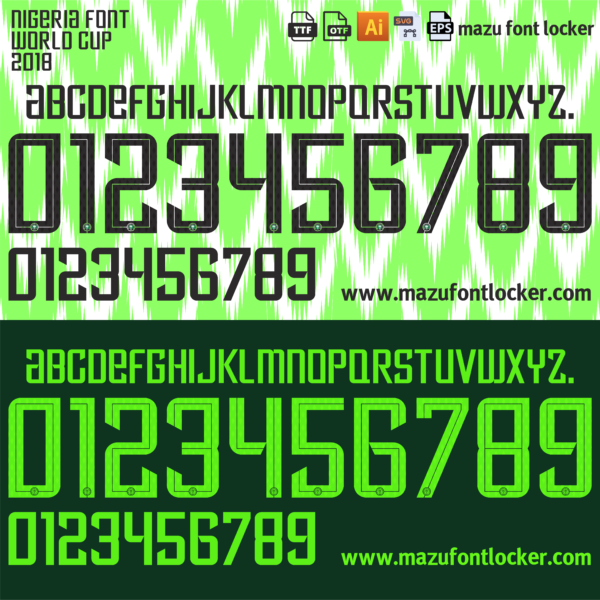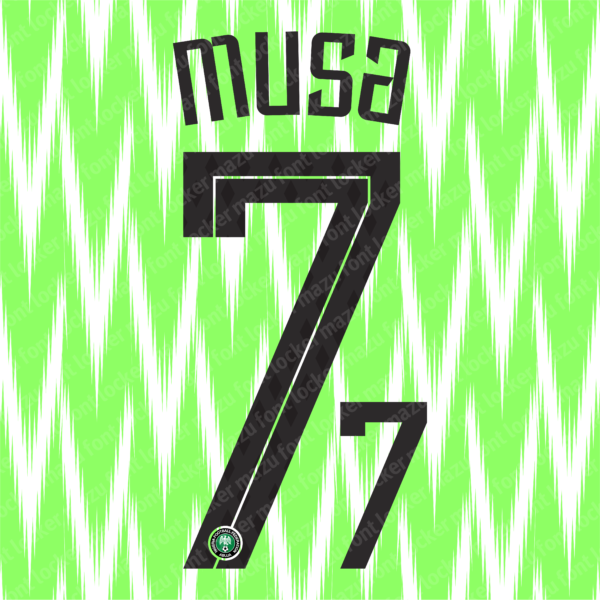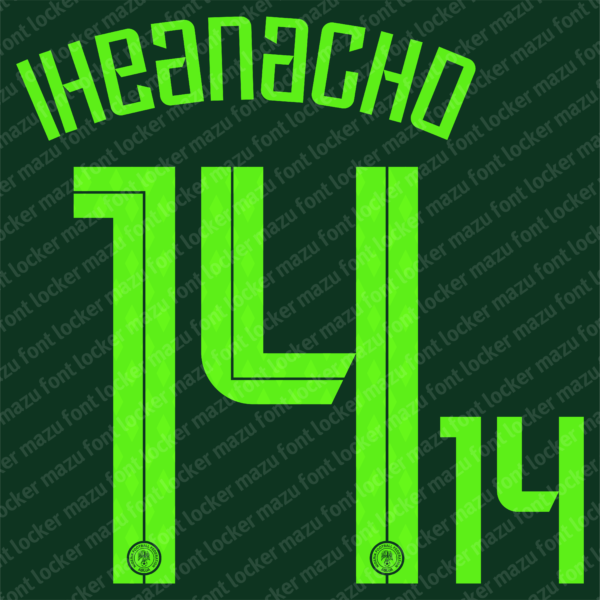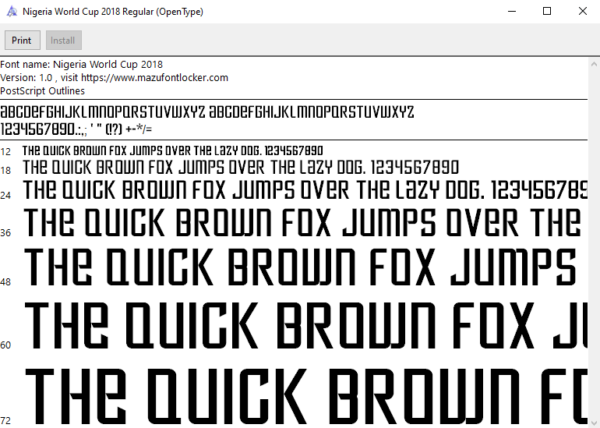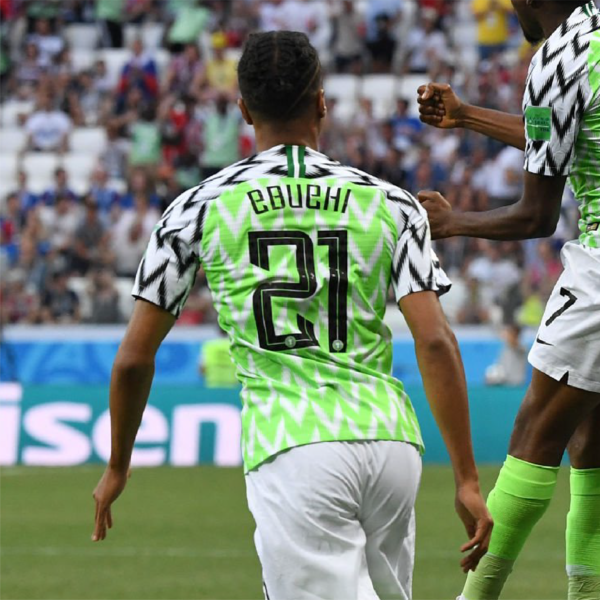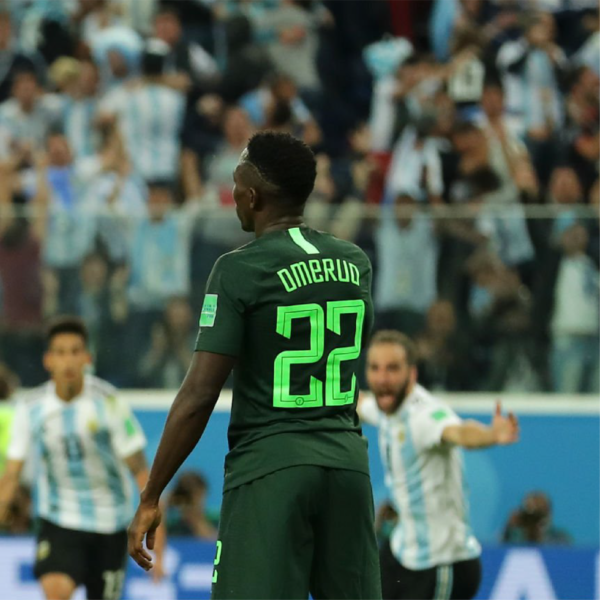
Nigeria World Cup 2018 Font Vector – Legendary Super Eagles Jersey Style
Download the iconic Nigeria World Cup 2018 font and bring the legendary Super Eagles jersey style into your creative projects with unmatched precision and authenticity. The Nigeria World Cup 2018 font is one of the most celebrated football jersey typefaces ever created, inspired by the unforgettable kit that shocked the football world with its bold design, vibrant energy, and fearless African spirit during the 2018 FIFA World Cup.
Nigeria World Cup 2018 Font Vector
The Nigeria World Cup 2018 Font is a premium, high-precision football jersey font vector meticulously engineered to capture the fearless energy, explosive creativity, and electrifying identity of Nigeria’s unforgettable World Cup kits.
Inspired by the legendary Super Eagles squad and their iconic 2018 World Cup campaign, this font unleashes a bold, dynamic, and powerful presence that radiates confidence, national pride, and unstoppable African football passion. Every letter and number has been painstakingly recreated with razor-sharp precision to embody the vibrant, fearless, and modern aesthetic that turned Nigeria’s 2018 jersey into a worldwide football and streetwear phenomenon.
🔥 Nigeria World Cup 2018 Font Features
- Authentic World Cup 2018 Nigeria jersey lettering style
The authentic lettering style helps recreate the classic look of the Nigeria World Cup 2018 kit with professional accuracy.
Unlike generic jersey fonts, this set is designed with a strong focus on authenticity and accuracy. Every detail is based on the original match lettering style used during the World Cup 2018, helping designers and collectors create realistic football shirt designs.